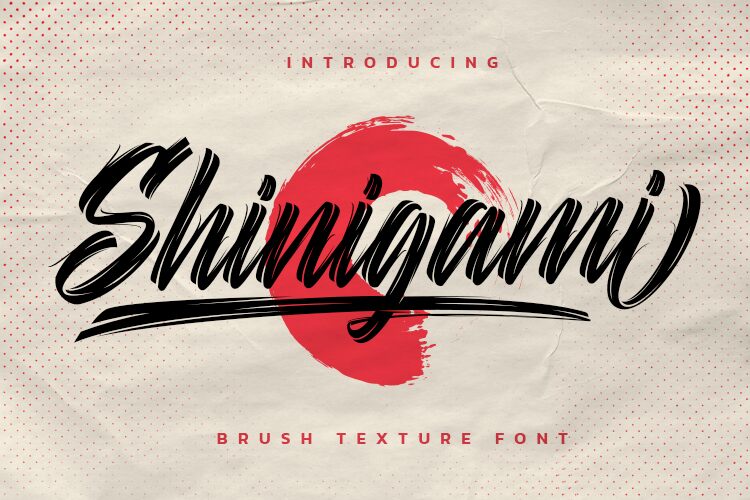
Shinigami, the captivating brush texture font designed by Hoperative, is perfect for creating designs that demand attention. This semi-condensed typeface adds a unique touch of sophistication to any project, be it logos, posters or even social media graphics. The sharp edges and rough texture of Shinigami make it ideal for projects that require an edgy and modern feel. Use this versatile font to create stunning typographic masterpieces that are sure to stand out in any crowd. With Shinigami in your design arsenal, you can elevate your work to a whole new level of creativity.
Shinigami